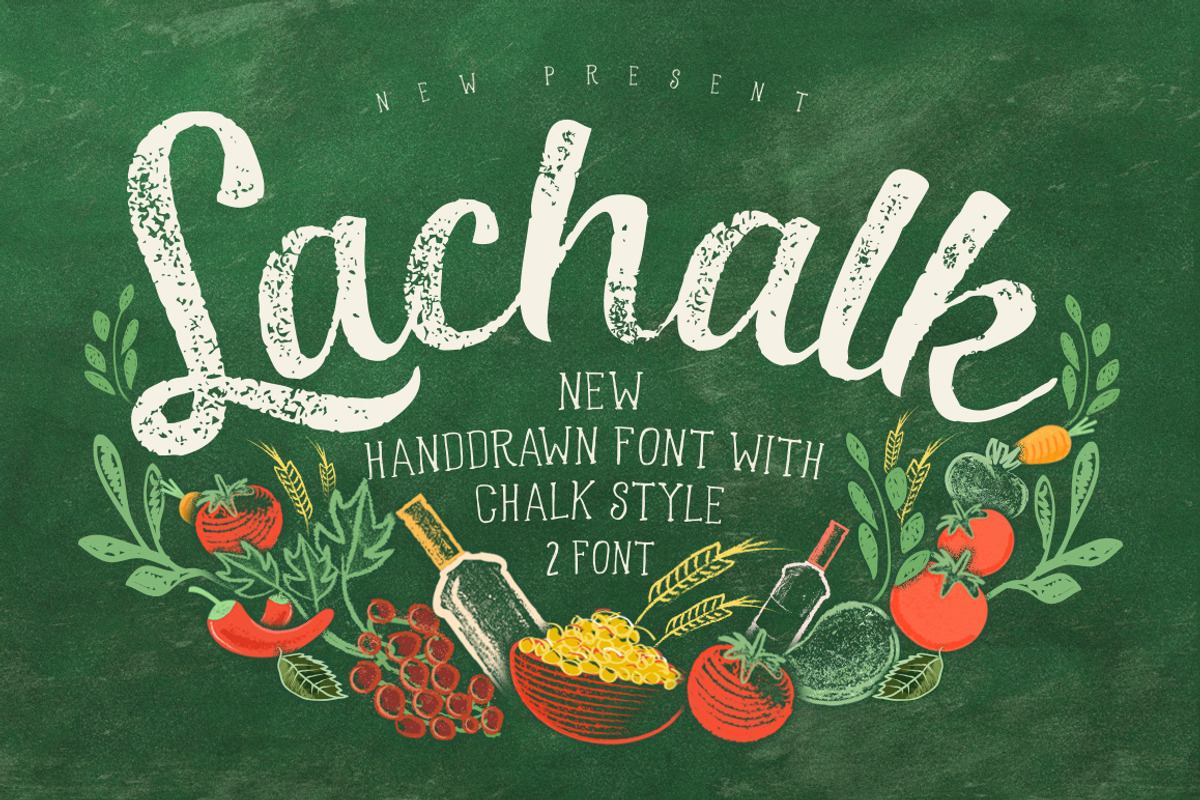
LaChalk Typeface Free Download
You must purchase this font for commercial use. However, you can download LaChalk Typeface Free Download for testing purposes. LaChalk is a fun, hand-drawn typeface inspired by chalkboard lettering. Its playful and casual design makes it perfect for designs that need a whimsical or creative touch. Whether you're working on event invitations, posters, branding, or social media graphics, this font brings a fun, hand-crafted feel to your projects.
With its chalk-like strokes and informal appeal, LaChalk Typeface is perfect for designs that need a personal, organic touch. Whether you’re crafting a quirky brand identity, an educational project, or a creative event flyer, this font will add personality and charm to your typography.